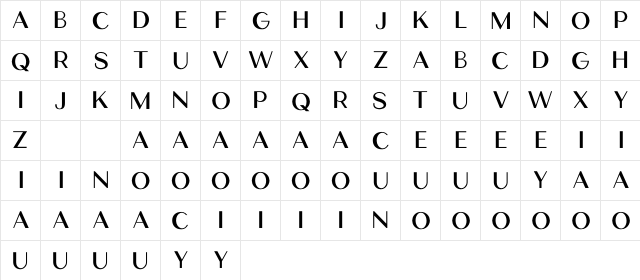
Cosmith Sans
Design Context for Cosmith Typeface
Cosmith is a composed and adaptable typeface that performs quietly and consistently across a wide range of design contexts.